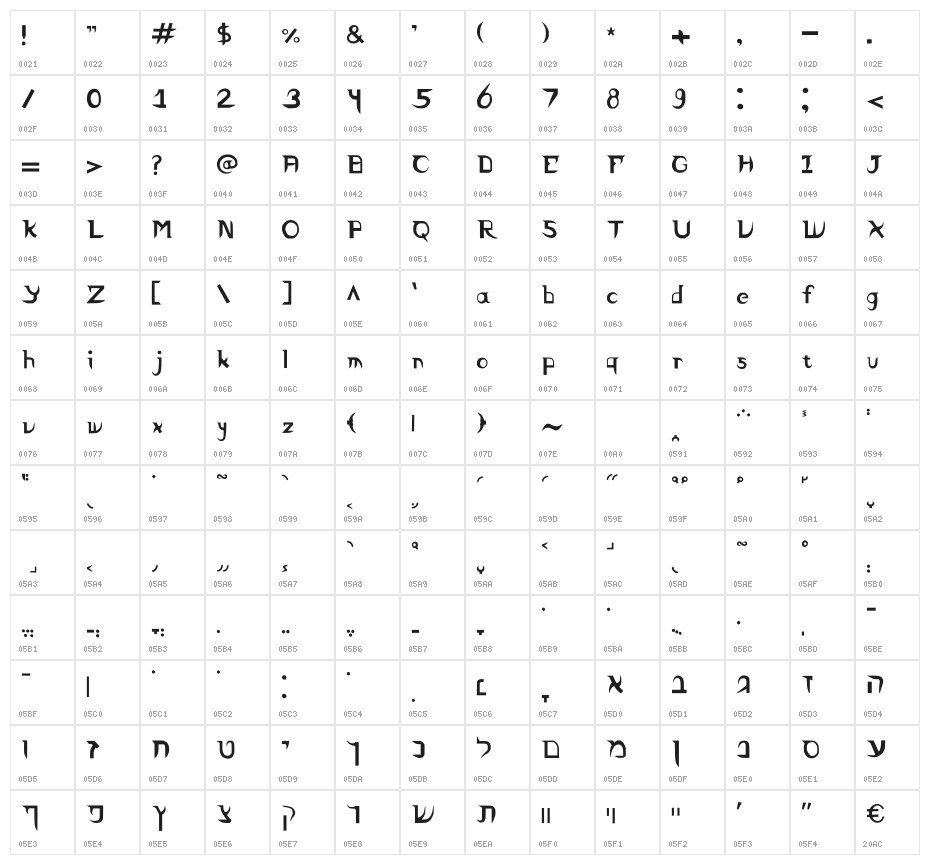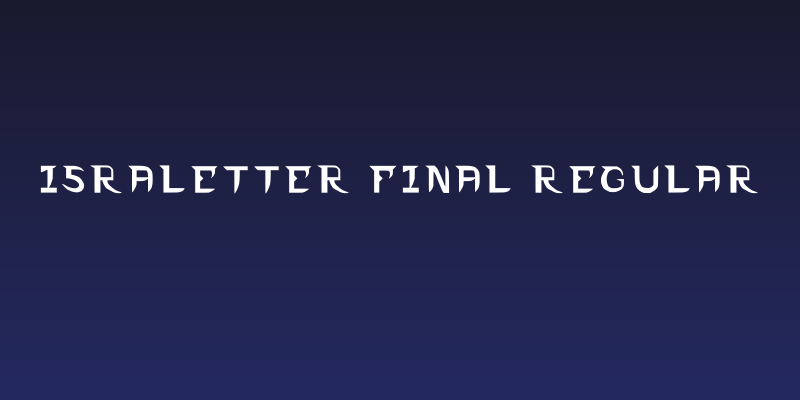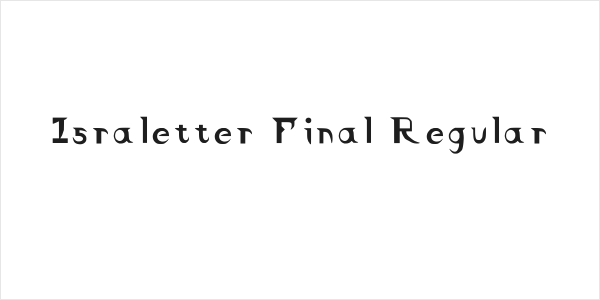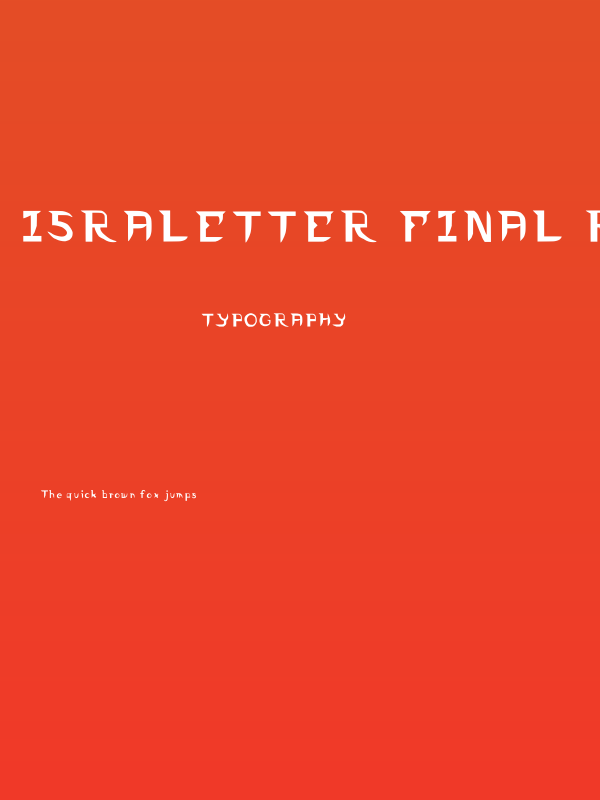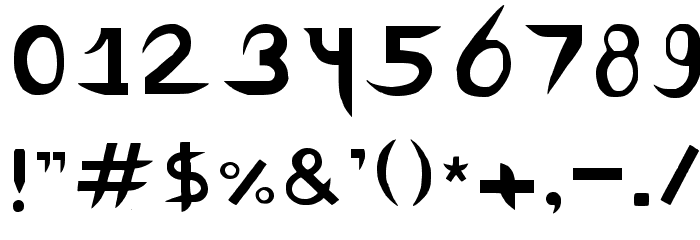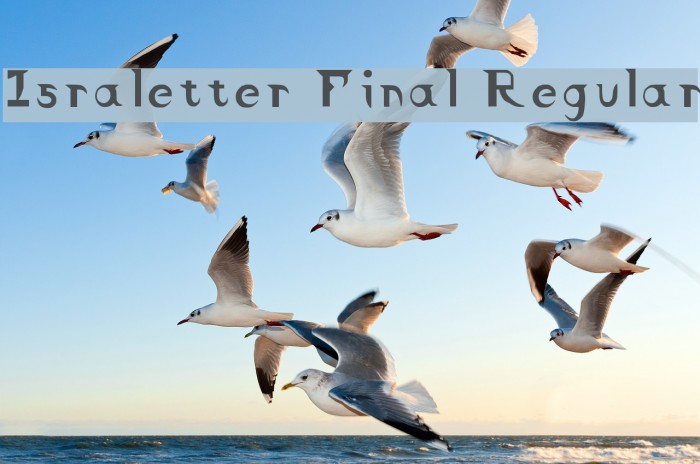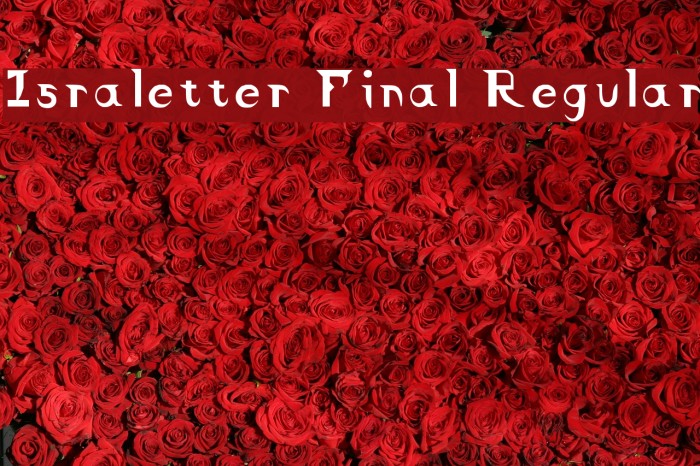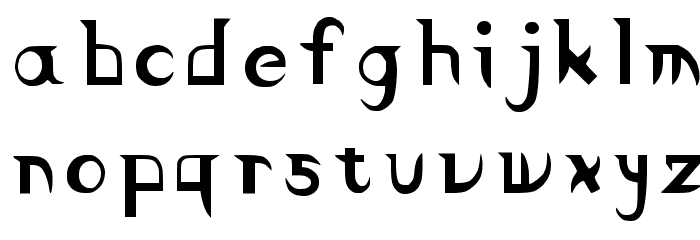
Israletter Final Regular Font
Israletter Final Regular Description
This font features a unique and bold design with sharp, angular edges and a distinct geometric style. The characters are crafted with a modern flair, incorporating both straight lines and subtle curves. The uppercase letters exhibit a strong presence, while the lowercase letters maintain a consistent style with slightly softer edges. The numerals are designed to match the overall aesthetic, providing a cohesive look. Special characters are included, each maintaining the font's distinctive style. This font is ideal for projects that require a bold and modern appearance.